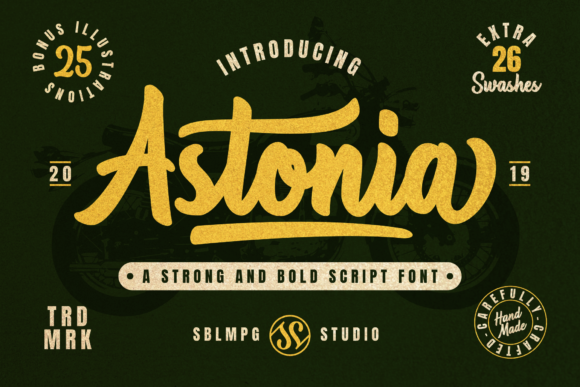
The Astonia Font: A Bold and Beautiful Script for Your Creative Projects
The Astonia font is a stunning script font that’s perfect for designers, crafters, and creative hobbyists looking to add a touch of vintage charm to their projects. In this article, I’ll share my honest review of the font, provide a practical guide on how to use it, and explore similar fonts and alternatives.
My Honest Review of Astonia Font
- 💯 The Astonia font is incredibly versatile, making it suitable for a wide range of projects, from logos and branding to invitations and social media graphics.
- ✅ Its unique vintage style sets it apart from other script fonts, giving it a distinctive and memorable look.
- 🎉 The font is curved and rounded, making it both strong and elegant.
- 🔍 The OpenType features and glyphs offer a range of creative possibilities, allowing you to customize the font to suit your project’s needs.
While the Astonia font is an excellent choice for many projects, there are a few things to keep in mind:
- 🤔 The font can be a bit overpowering if not paired with a complementary font. Make sure to choose a font that provides sufficient contrast.
- ⚠️ Some of the glyphs and stylistic alternates can be a bit tricky to access, especially for those new to OpenType features.
The Designer Inspiration Behind Astonia Font
The Astonia font was designed with the goal of creating a unique, vintage-inspired script font that’s both strong and elegant. The designer drew inspiration from classic typography and combined it with modern techniques to create a font that’s both timeless and trendy.
Q: What is the Astonia font best suited for?
A: The Astonia font is best suited for projects that require a strong, elegant script font with a vintage touch. It’s perfect for branding, logos, invitations, and social media graphics.
Q: Is the Astonia font easy to read?
A: Yes, the Astonia font is designed to be easy to read, even at smaller sizes. However, it’s best used as a display font or for headlines, rather than body text.
Q: Can I customize the Astonia font?
A: Yes, the Astonia font comes with a range of OpenType features and glyphs that allow you to customize the font to suit your project’s needs. You can access these features in compatible software, such as Adobe Photoshop and Illustrator.